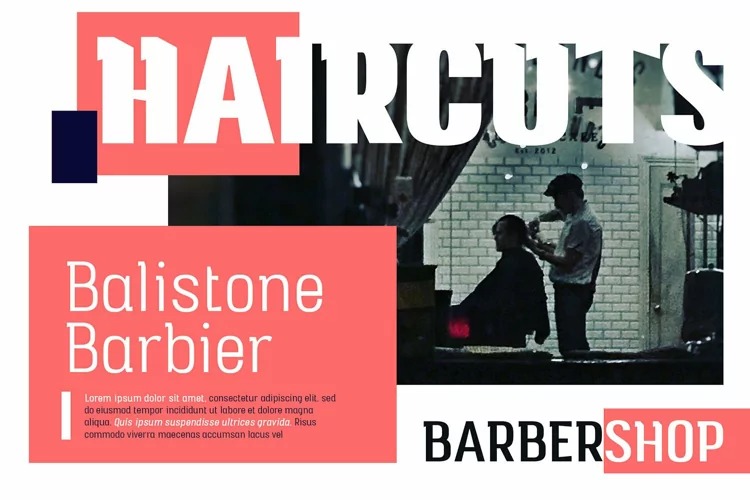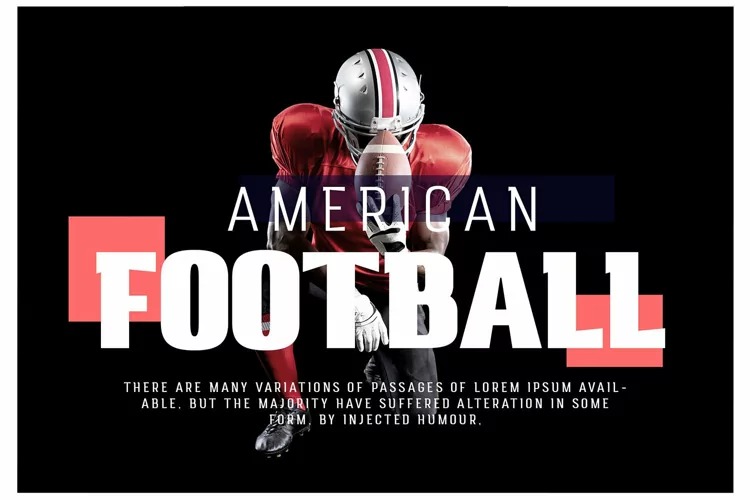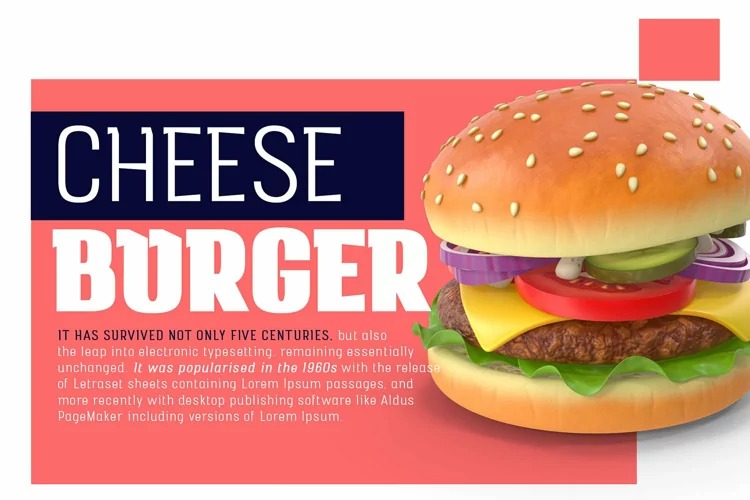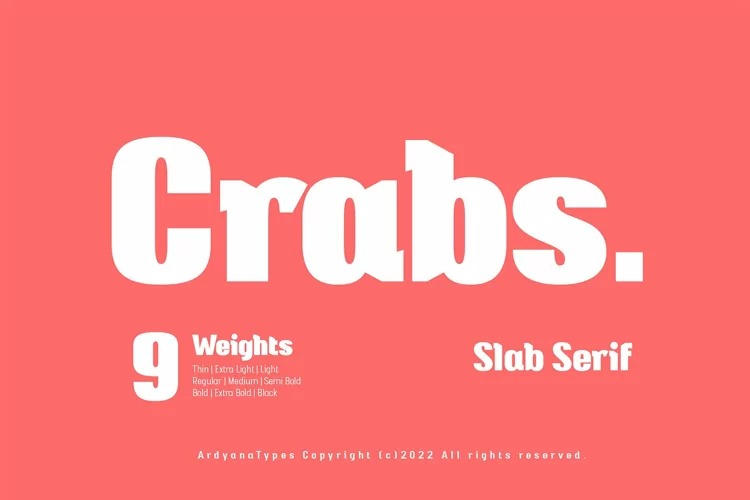
Crabs Slab Font
This is a versatile font family. Strong uppercase and smooth open lowercase are effective in a variety of applications and have 9 elegant styles. Comes with a Slab Serif style typical of sturdy and elegant typography, which gives a modern, retro, and classic style but has a unique and elegant style that gives an extraordinary impression. Crabs Slab also comes with multiple languages enabling Crabs Slab to be used in all your projects. Crabs Slab is very suitable for use in various purposes or projects, including Sports, Posters, Products, Logos, Branding, and many more that you can apply with this Crabs Slab Typeface.